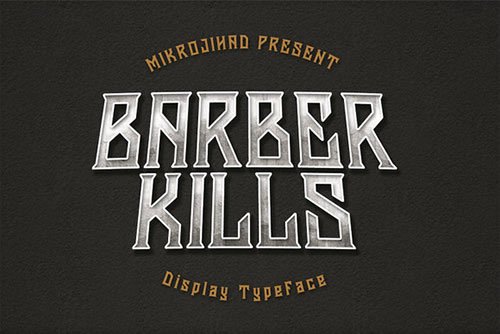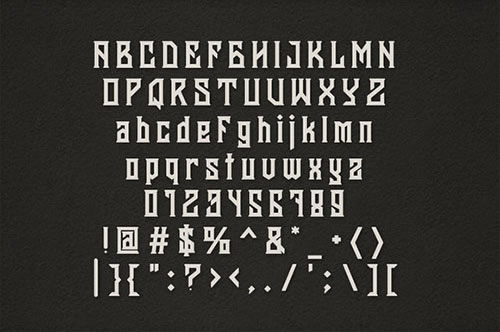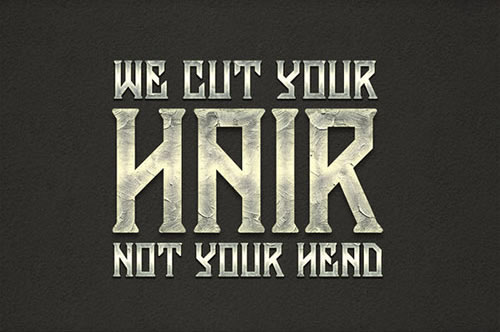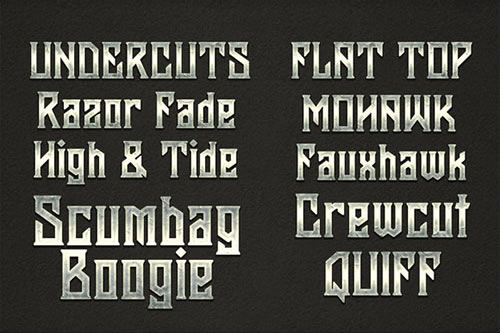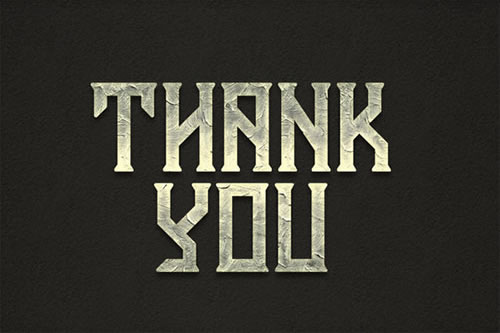
The Birth of a Bold Typography: Unveiling Barber Kills Font
Have you ever sat at your desk, staring blankly at a blank canvas, waiting for the perfect font to strike inspiration? For designers, this is a moment we all know too well. It’s the moment when a single font can make or break the entire aesthetic of a project. And that’s exactly what happened when I stumbled upon the Barber Kills Font – a unique display typeface that’s been making waves in the design community.
This striking font is perfect for making a statement, whether it’s in headings, logos, invitations, book covers, posters, or anything in between. With its bold, eye-catching design, Barber Kills Font is an invaluable asset for designers looking to add some flair to their work. Whether you’re a seasoned pro or just starting out, this font is sure to bring your designs to life in a way that’s both memorable and impactful.
Key Features of Barber Kills Font
- Font Family: Barber Kills Font is a unique, hand-drawn font family designed for use in various creative projects.
- Size: The font family includes multiple weights and styles, ranging from Thin to Black, with corresponding font sizes.
- Resolution: The font is designed for use at high resolutions (up to 300 DPI), ensuring crisp and clear text display.
- Unique Characteristics: Barber Kills Font features a distressed, hand-drawn look with subtle texture and imperfections, giving it a unique and creative feel.
- Language Support: The font supports a wide range of languages, including Latin, Cyrillic, and Greek scripts.
Barber Kills Font Review
I was excited to dive into the Barber Kills Font and see if it could deliver the edgy, high-energy vibe I’m always looking for in a font.
- The font’s distressed, vintage feel is on point. It’s perfect for adding a touch of grit to your designs.
- The character set is extensive, with a wide range of characters and symbols to choose from.
- The font is highly customizable, with a range of weight and style options to suit your design needs.
- The font may be too edgy for more conservative or traditional designs. It’s best suited for bold, attention-grabbing projects.
- The font’s distressed texture can sometimes be overpowering, making it difficult to read at smaller font sizes.
- The font may not be compatible with all operating systems or software, which could lead to compatibility issues.
Overall, I’m impressed with the Barber Kills Font‘s unique style and versatility. While it may not be suitable for every design project, it’s a great choice for those looking to add a touch of edginess to their work.
Barber Kills Font is ideal for use in designs that require a bold, distressed look, such as:
- Rock and roll music posters
- Retro-style advertisements
- Edgy fashion designs
Remember to always use the font in context and with a clear message to get the most out of it.